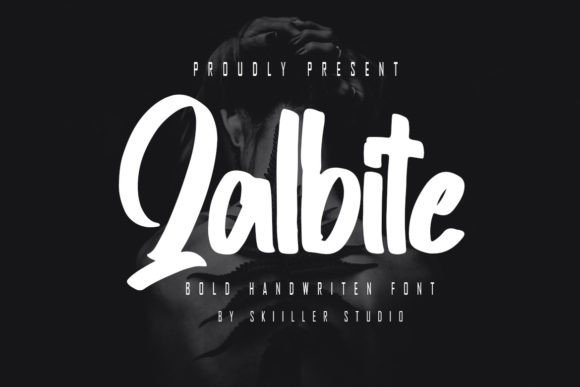
Introducing Qalbite Font: The Stroke of Elegance for Your Creative Endeavors
In the realm of typography, where letters dance and words take flight, Qalbite Font emerges as a breathtaking script, a symphony of strokes that captivates and enchants. Inspired by the beauty of handwritten notes, Qalbite embodies the essence of elegance and creativity, adding a touch of personal flair to your designs.
With its bold and graceful curves, Qalbite possesses an inherent charm that elevates your projects to new heights of sophistication. Each letter is meticulously crafted, exuding a sense of individuality and artistry. Whether you're crafting wedding invitations, designing logos, creating social media graphics, or embarking on any other creative pursuit, Qalbite effortlessly infuses your work with a touch of timeless beauty.
Qalbite's versatility knows no bounds. It seamlessly adapts to a myriad of design styles, from classic and traditional to modern and contemporary. Its inherent elegance lends itself perfectly to wedding stationery, adding a touch of romance and charm to your special day. Unleash your creativity and design invitations, place cards, menus, and other wedding essentials that reflect your unique love story.
Beyond weddings, Qalbite shines in the world of branding and marketing. Its bold strokes and distinctive character make it an ideal choice for logos, business cards, and other branding materials. Create a lasting impression on your audience with a logo that exudes professionalism and sophistication.
Qalbite's captivating nature also makes it a perfect fit for social media graphics. Its ability to grab attention and convey emotions effectively makes it an invaluable tool for creating engaging and shareable content. Whether you're designing Instagram posts, Facebook ads, or Pinterest pins, Qalbite ensures your message stands out in the crowded digital landscape.
The possibilities with Qalbite are endless. Its versatility and charm extend to greeting cards, posters, flyers, and countless other projects. Let your imagination soar as you explore the boundless creative opportunities that await you with this extraordinary font.